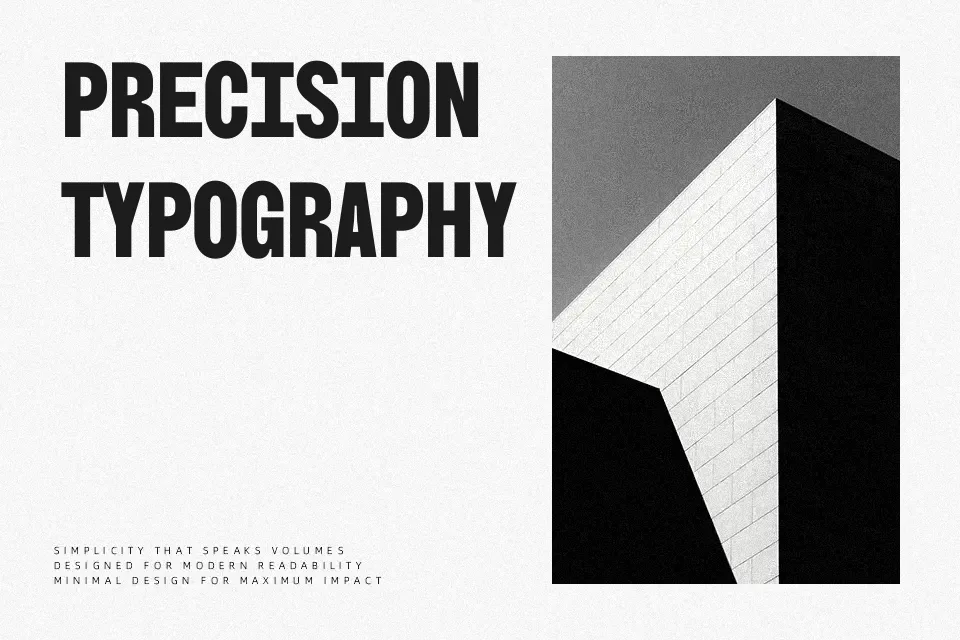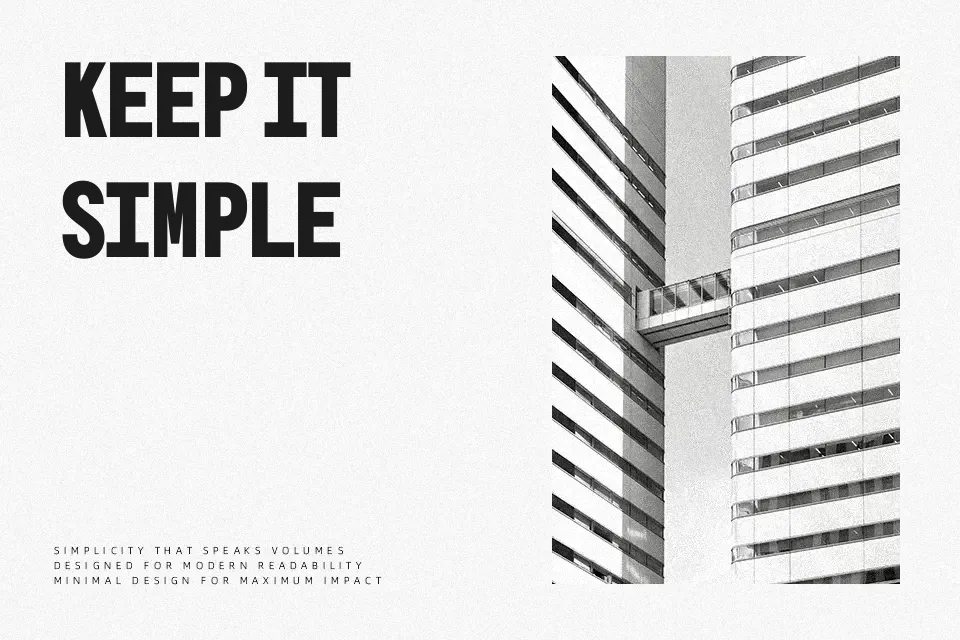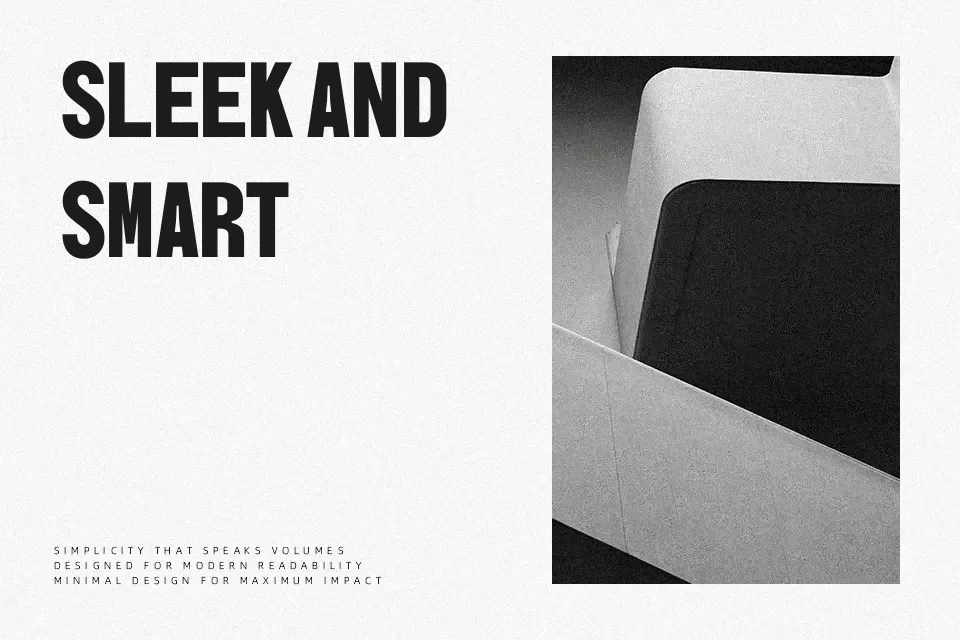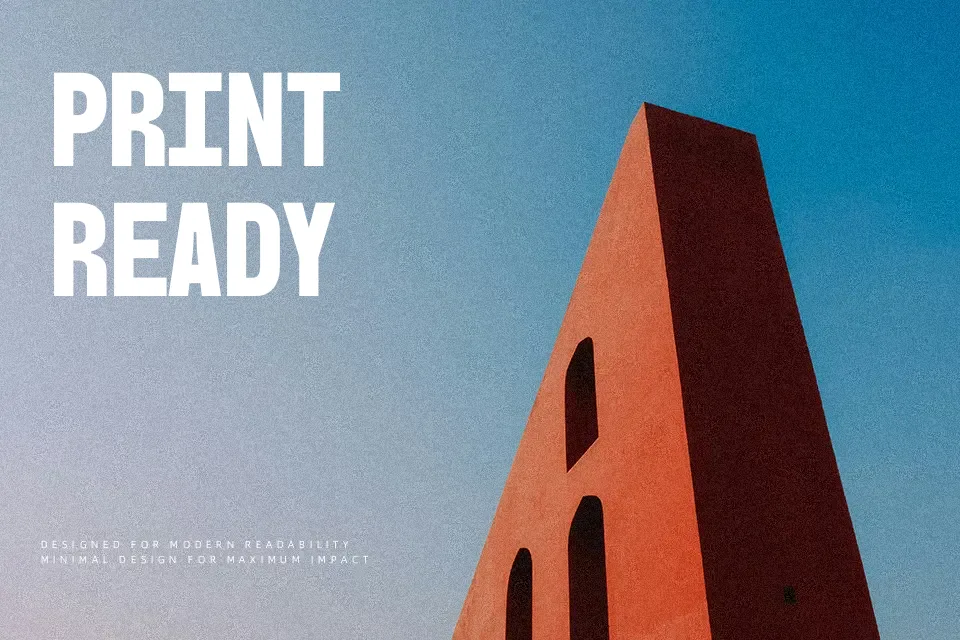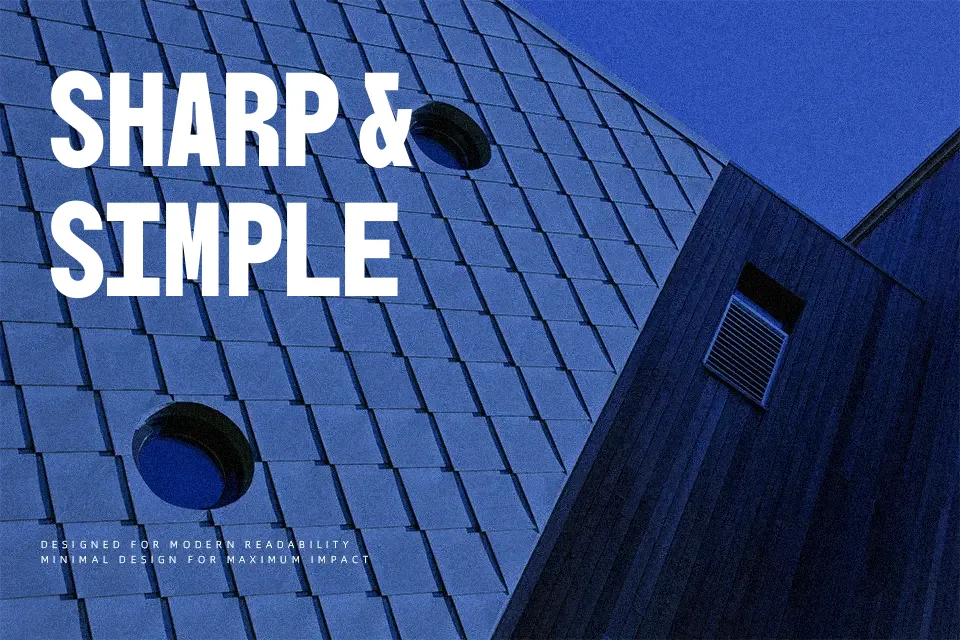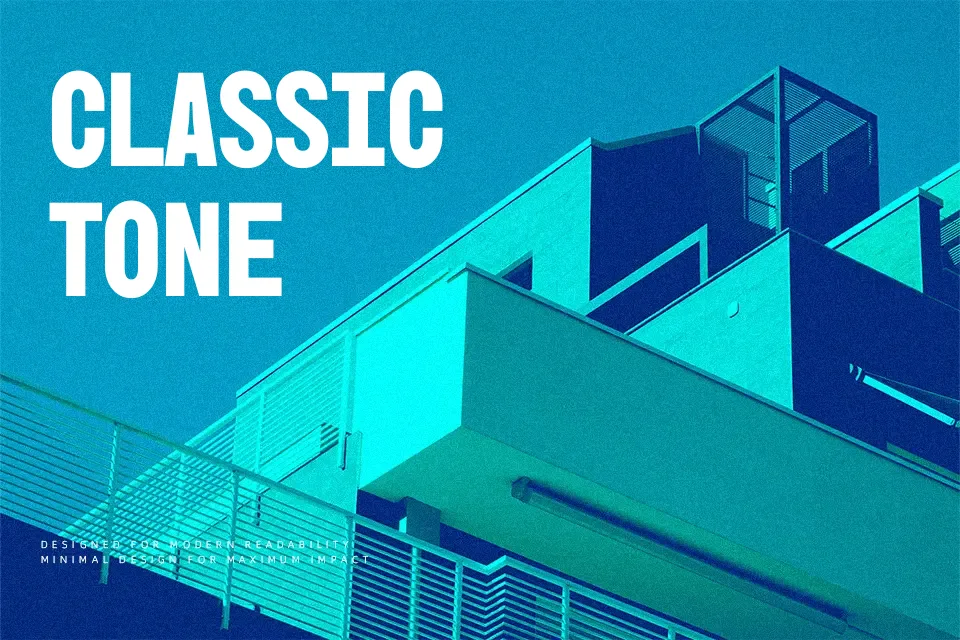
BBH Bogle Font
BBH Bogle is the condensed member of the BBH family, built as a clean sans serif with slim proportions, consistent stroke weight, and efficient spacing that lets you fit more text without feeling cramped. Its structure leans modern and functional rather than decorative, so it behaves more like a practical tool than a showpiece. In use, it works nicely for stacked logo wordmarks, app sidebars, promo banners, and narrow column headers where a regular-width sans would wrap too quickly. It feels composed and contemporary, but if you push it into dense body copy or long-form reading, the tight width can start to feel tiring. If you already like compact grotesque-style sans serifs, this one sits in a similar territory but with a slightly more utilitarian attitude.
compact headlines in layouts
app or dashboard labels
space-conscious branding systems
narrow editorial sidebars
long paragraphs of body text
formal print documents
tiny legal disclaimers
heavily decorative lettering work
Perfect for branding, headline, and logo, with a clean and condensed style.